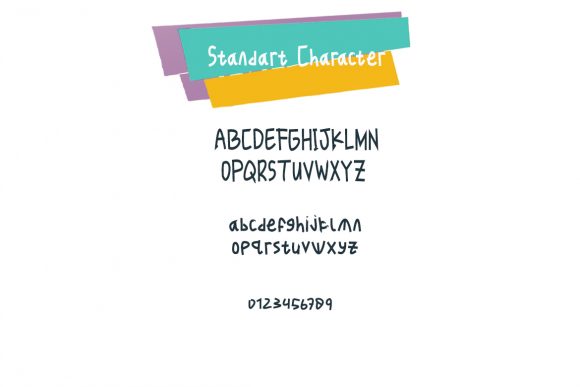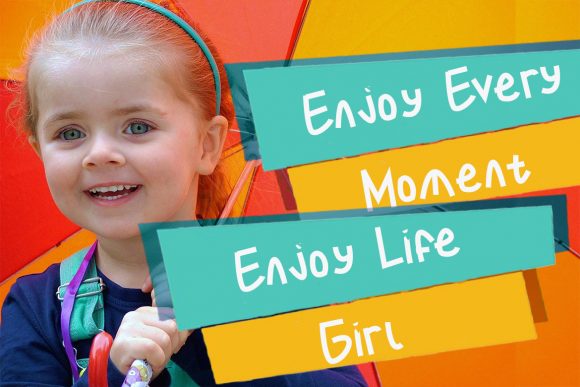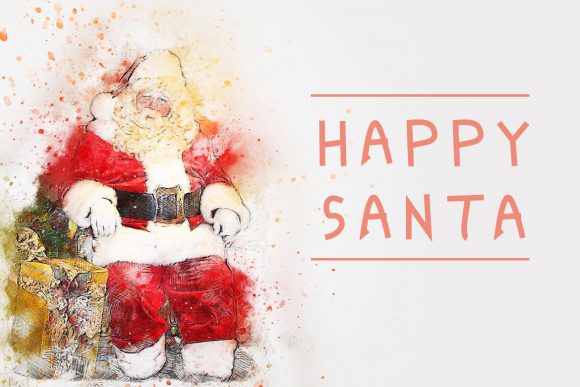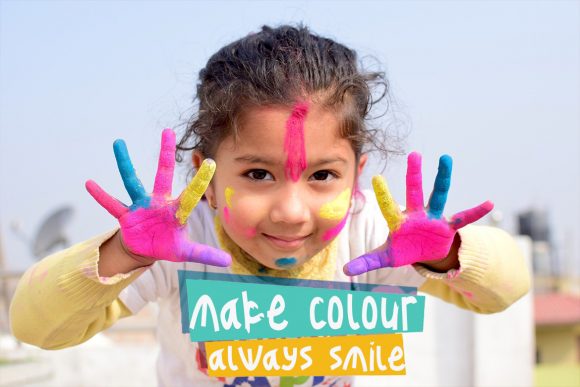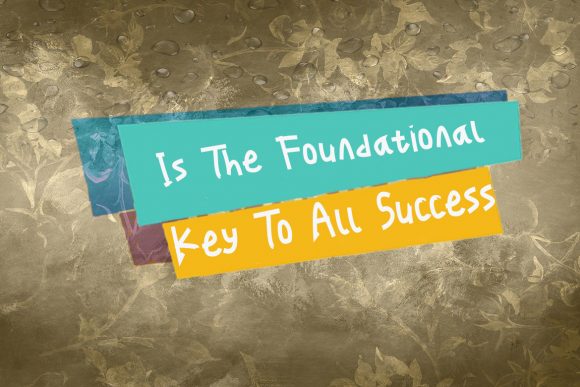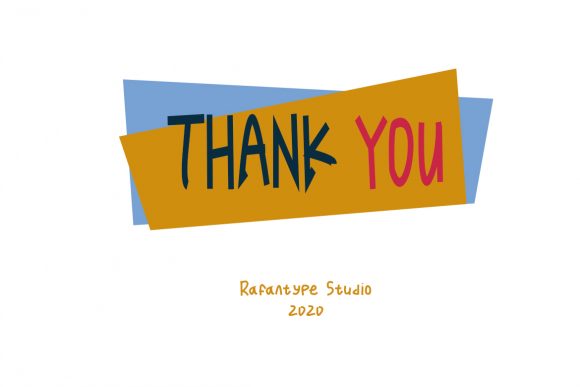
Introducing Belbilang Font: The Fun and Crafty Display Font for Creative Designs
Are you a designer, crafter, or digital artist looking for a font that can add a touch of playfulness and creativity to your projects? Look no further than Belbilang Font! This fun and crafty display font is perfect for a wide range of designs, from crafting and digital designing to presentations and greeting cards making.
What Makes Belbilang Font Special?
Belbilang Font is a tall and simple font that is incredibly versatile. Its clean and elegant design makes it perfect for use in various creative projects. Whether you’re looking to create a fun and playful design or a more serious and professional one, Belbilang Font is sure to deliver.
Key Features of Belbilang Font
- Fun and Crafty Design: Belbilang Font has a unique and playful design that is sure to add a touch of creativity to your projects.
- Tall and Simple: The font’s tall and simple design makes it easy to read and perfect for use in a wide range of designs.
- Versatile: Belbilang Font is incredibly versatile and can be used in various creative projects, from crafting and digital designing to presentations and greeting cards making.
- Elegant and Clean: The font’s clean and elegant design makes it perfect for use in professional designs.
Belbilang Font is perfect for use in various creative projects, including:
- Crafting: Use Belbilang Font to add a touch of playfulness and creativity to your crafting projects, such as handmade cards, scrapbooking, and DIY projects.
- Digital Designing: Belbilang Font is perfect for use in digital designs, such as social media graphics, blog posts, and website headers.
- Presentations: Use Belbilang Font to add a touch of creativity and professionalism to your presentations.
- Greeting Cards Making: Belbilang Font is perfect for use in greeting cards making, such as birthday cards, holiday cards, and thank-you cards.
Why Choose Belbilang Font?
There are many reasons why you should choose Belbilang Font for your creative projects. Here are a few:
- Unique Design: Belbilang Font has a unique and playful design that is sure to make your projects stand out.
- Easy to Read: The font’s clean and simple design makes it easy to read, even at small sizes.
- Versatile: Belbilang Font is incredibly versatile and can be used in various creative projects.
- High-Quality: Belbilang Font is a high-quality font that is perfect for use in professional designs.
Belbilang Font is a fun and crafty display font that is perfect for creative designers, crafters, and digital artists. Its unique and playful design makes it incredibly versatile and perfect for use in various creative projects. With its clean and elegant design, Belbilang Font is sure to add a touch of creativity and professionalism to your projects. So why wait? Download Belbilang Font today and start creating!